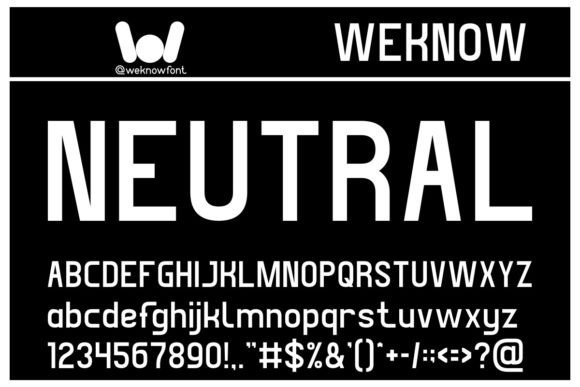
Step into a world of simplicity and sophistication with our Neutral Font, a sans serif masterpiece crafted by weknow. This font family exudes elegance and minimalism, making it the perfect choice for your creative endeavors.
With its clean lines and understated beauty, Neutral Font effortlessly captures the essence of modern design. Whether you're crafting a logo, logotype, headline, or any other visual element, Neutral Font will elevate your work to new heights.
Dive into a sea of creative possibilities with Neutral Font. Its versatility knows no bounds, making it suitable for a wide range of projects, from corporate identities and apparel designs to posters, music, movies, games, and more. Let your imagination soar as you explore the endless possibilities that await.
Neutral Font's charm lies in its ability to blend seamlessly into any design concept. Its understated presence allows your content to take center stage, while its subtle elegance adds a touch of sophistication that captivates the eye. Whether you're designing for print or digital media, Neutral Font will make your words shine.
With Neutral Font, you'll discover a font that's not just a tool but a true ally in your creative journey. Its unwavering legibility ensures that your message is conveyed with clarity and impact. Even in the smallest of sizes, Neutral Font's characters maintain their crispness and readability, ensuring that your designs remain visually appealing even when viewed from afar.
Neutral Font is more than just a collection of letters; it's an invitation to explore the depths of your creativity. Its simplicity encourages experimentation, allowing you to push the boundaries of your imagination and create designs that truly stand out. Be it a book cover, a magazine layout, or a captivating social media post, Neutral Font will bring your vision to life with effortless grace.
Embark on a design odyssey with Neutral Font, and discover a world where simplicity meets sophistication. Its timeless beauty and endless versatility will transform your creative projects into works of art. Let Neutral Font be your guide as you navigate the ever-evolving landscape of visual communication.